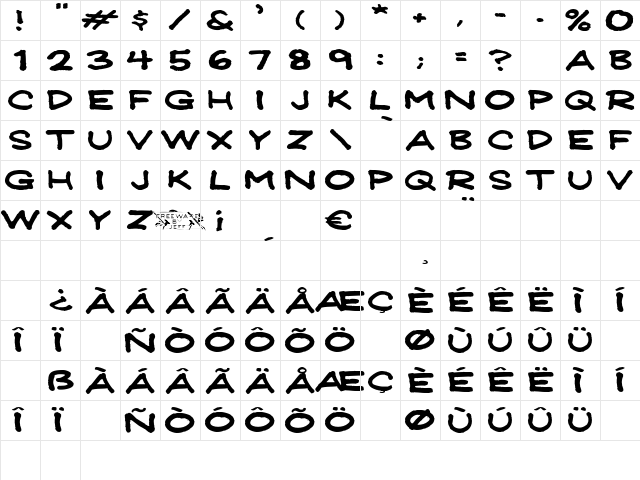
JeffreyPrint JL Wide Regular
| Foundry | Jeff's Fonts & Dingbats |
| Designer | Jeffrey N. Levine |
Design Context for JeffreyPrint JL Wide Typeface
JeffreyPrint JL Wide is a composed and adaptable typeface that performs quietly and consistently across a wide range of design contexts.